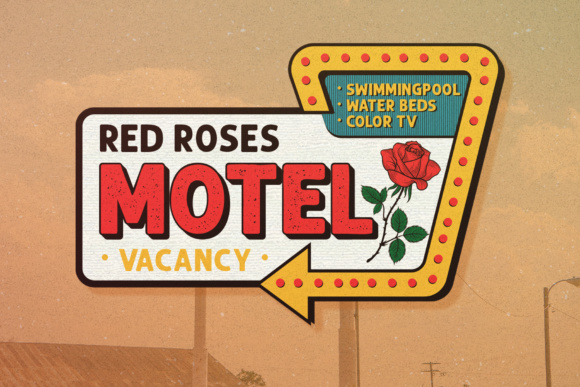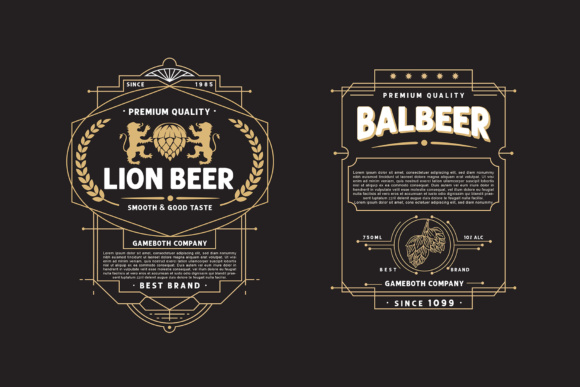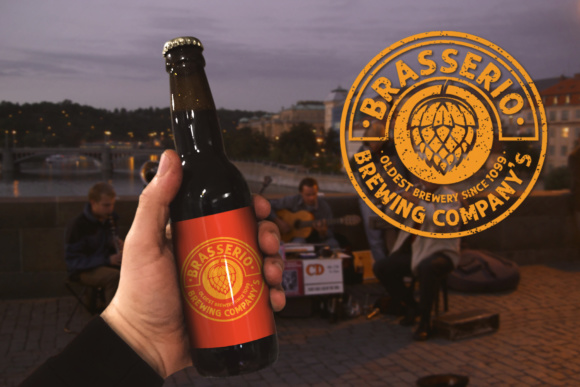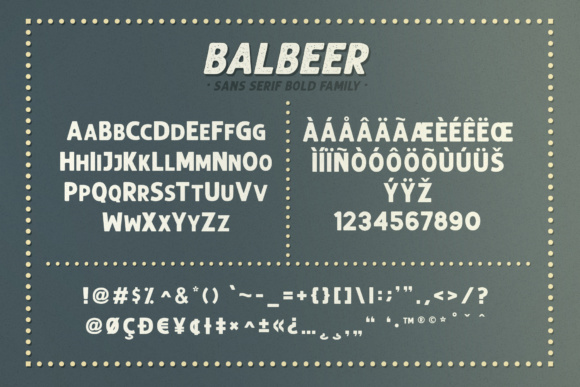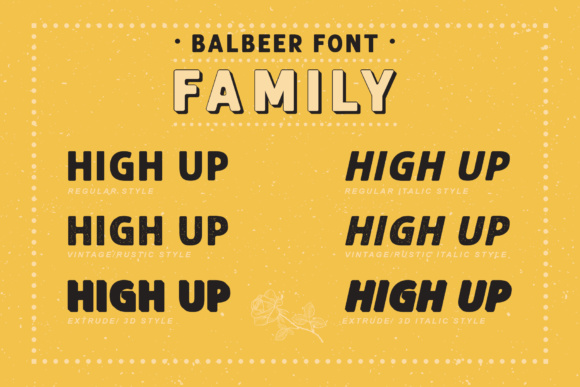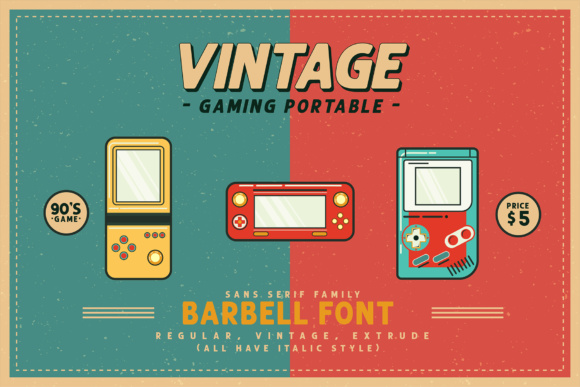
Discover the Perfect Blend of Vintage and Grunge with the Balbeer Font
You know that moment when you’re brainstorming a new project and you’re stuck on finding the perfect font? The one that captures the essence of your brand and speaks directly to your audience? For designers, it’s a crucial decision that can make or break the entire visual identity of a project.
That’s where the Balbeer Font comes in – a striking font family that’s sure to bring a touch of vintage grunge to your designs. With 6 styles to choose from, you’ll have endless possibilities to create unique and eye-catching visuals. From display designs to t-shirt and badge designs, the Balbeer Font is the ultimate package for designers looking to add some grit and charm to their work.
Balbeer Font Key Features
- Font Style: A unique blend of modern and traditional elements, making it suitable for various design applications.
- Font Size: Offers a range of sizes, from 8-point to 72-point, catering to different design requirements.
- Resolution: Designed to be scalable, making it ideal for both screen and print applications, with a recommended resolution of 300 DPI for print.
- Language Support: Supports a wide range of languages, including Latin, Cyrillic, and Devanagari scripts, making it a versatile font choice.
- Character Count: Contains over 1,000 glyphs, including a variety of ligatures, swashes, and ornaments, to enhance design creativity.
Review: Balbeer Font
As a designer, I’ve had the chance to work with Balbeer Font, and I must say it’s a unique addition to any project. ✨ One of the standout features of this font is its bold and playful personality, making it perfect for use in headlines, titles, or other areas where you want to grab attention.
Another aspect I appreciate is its versatility. ✨ Balbeer Font comes in a range of weights, from light to bold, allowing designers to experiment with different styles and effects. The font also supports multiple languages, which is a big plus for projects that require internationalization.
While Balbeer Font has its strengths, there are some areas where it falls short. ⚠️ For one, the font may not be suitable for body text, as it can be quite difficult to read in smaller sizes. Additionally, the font’s eccentricities may not be to everyone’s taste, and some users may find it too playful or distracting.
In conclusion, Balbeer Font is a great choice for designers looking to add a bit of flair to their projects. While it may not be perfect for every use case, its unique personality and versatility make it a valuable addition to any font library.
- Bold and playful personality
- Range of weights (light to bold)
- Support for multiple languages
- Unique, eye-catching design
Tip: Use Balbeer Font to add a unique and eye-catching touch to your Canva designs, such as headings or titles.
Tip: Use Balbeer Font to create custom typography for your graphics and illustrations.
Tip: Use Balbeer Font to add a professional and unique touch to your presentations and documents.
Some common use cases for Balbeer Font include:
- Creating eye-catching headings and titles.
- Adding a unique touch to graphics and illustrations.
- Enhancing presentations and documents with professional typography.
Remember to experiment with different font sizes, colors, and styles to get the most out of Balbeer Font.
Alternatives to Balbeer Font
Siddhartha Font
Siddhartha Font is a beautiful, elegant script font that is perfect for creating a sophisticated and luxurious feel. It is ideal for use in branding, advertising, and editorial design. The Siddhartha Font has a similar vintage feel to the Balbeer Font but with a more refined and polished look.
Preeti Font
Preeti Font is a classic Devanagari font that is commonly used in Indian typography. It has a clean and modern design that makes it perfect for use in digital media, such as websites and mobile apps. The Preeti Font has a similar simplicity to the Balbeer Font but with a more contemporary feel.
Can I customize Balbeer Font for my specific branding needs?
Yes, Balbeer Font can be customized to meet your specific branding needs. You can adjust the font’s color, opacity, and other stylistic attributes using CSS or a font editing software. Additionally, you can also create custom font variations by modifying the font’s OpenType features or using a font editing software like FontForge.